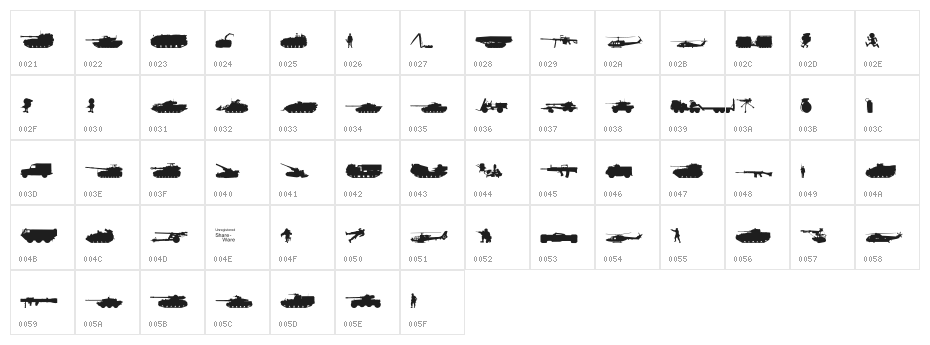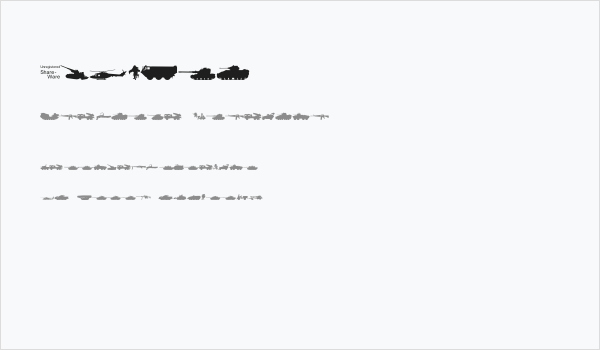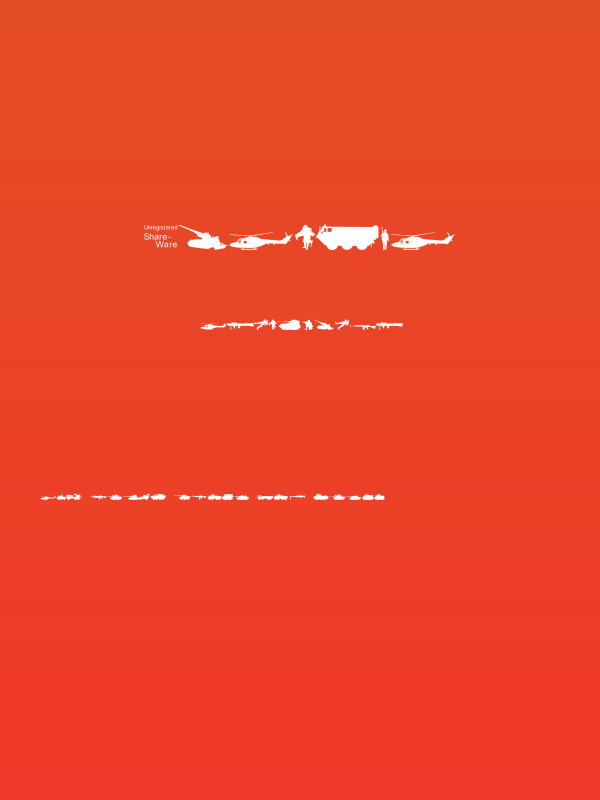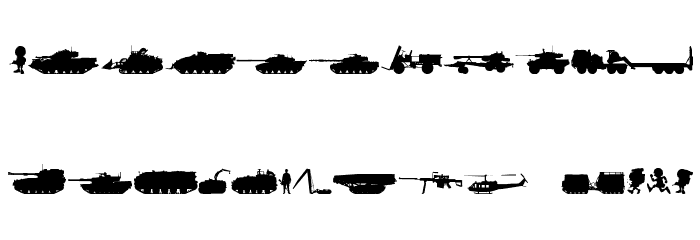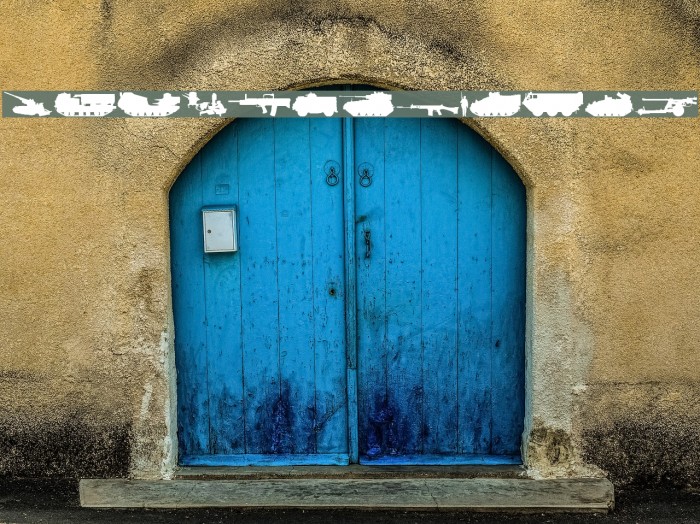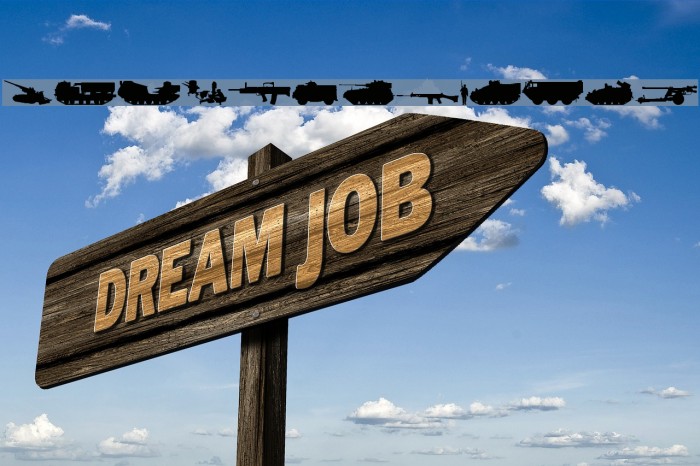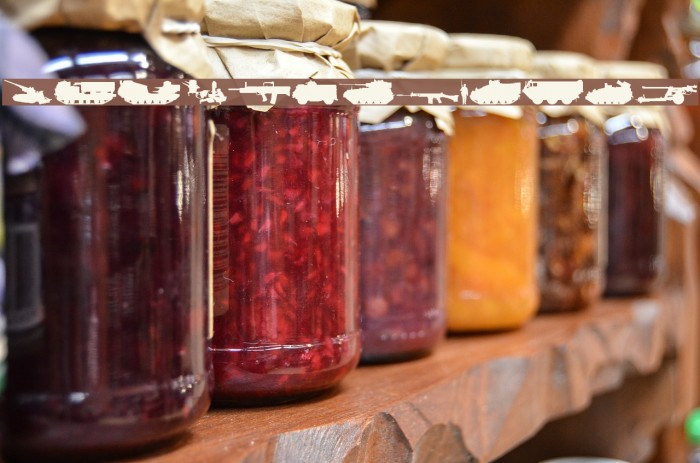
NATOKit Font
| Vorgeschlagene Projekte | Ideal for military-themed posters, video game graphics, educational materials on military history, and themed event invitations. |